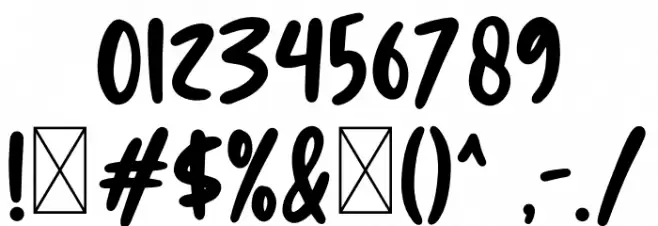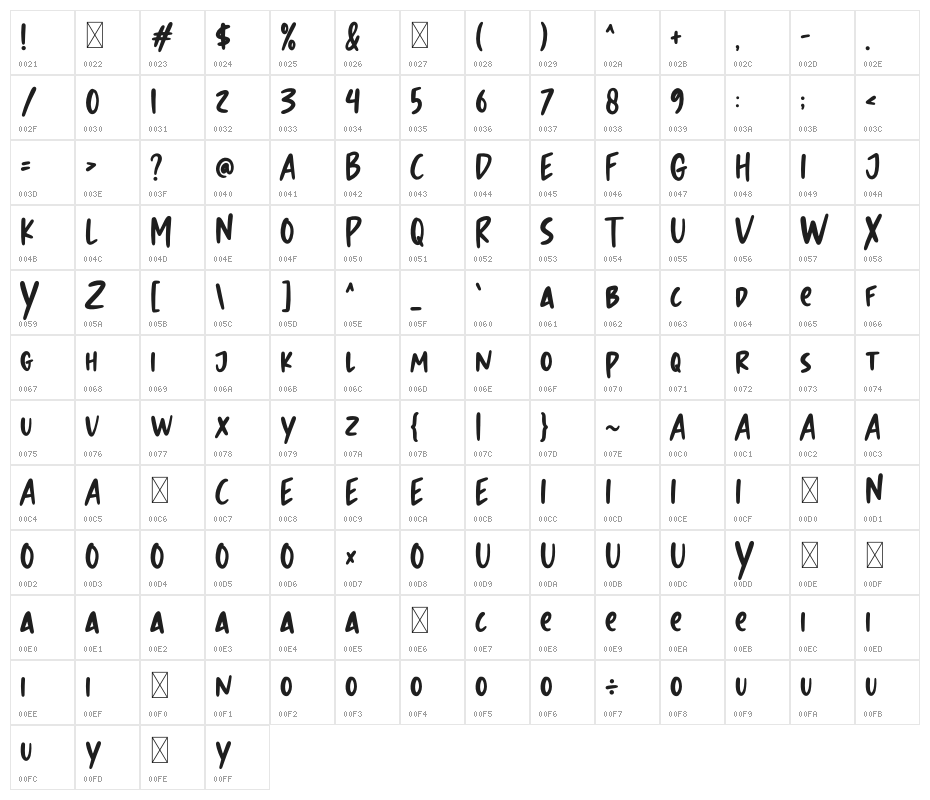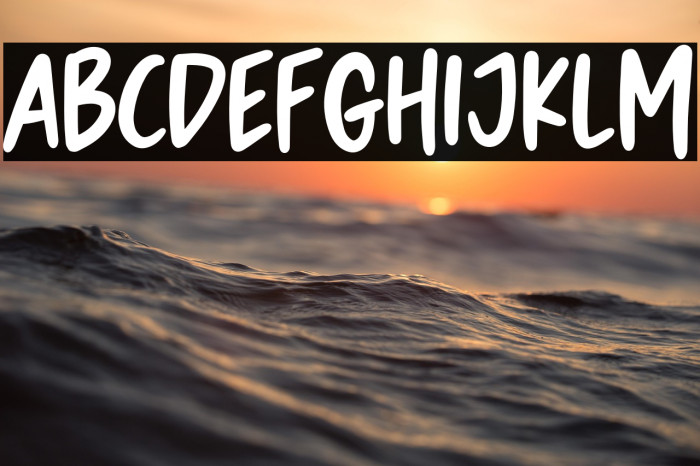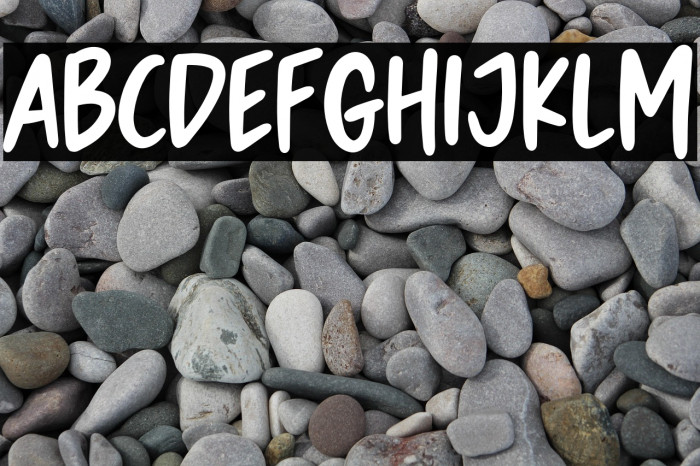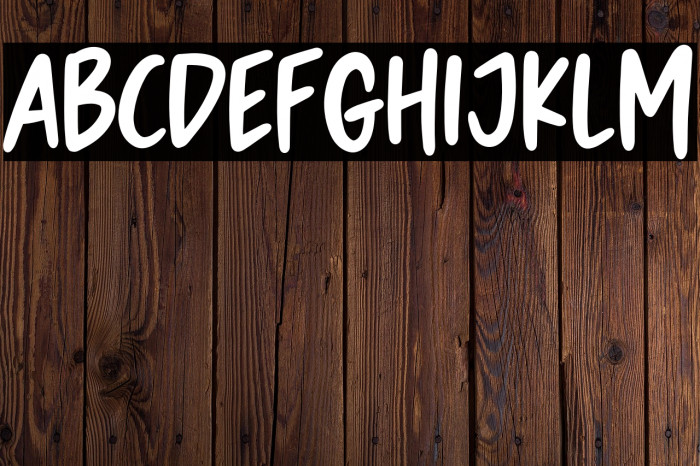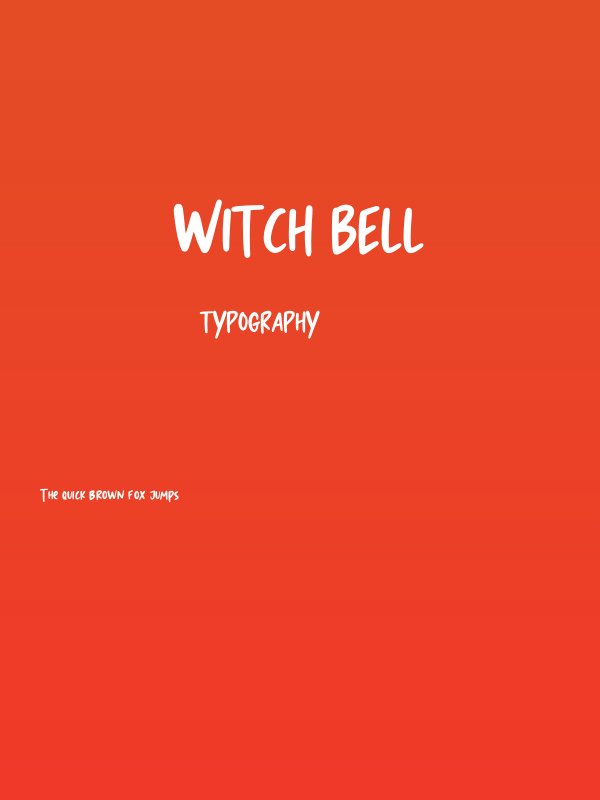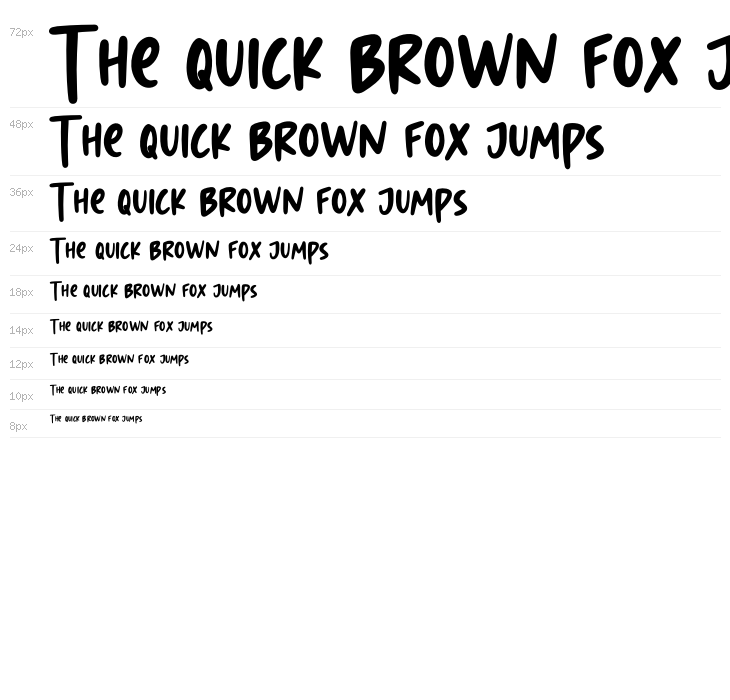
Witch Bell Font
Witch Bell Description
This font features a bold and playful handwritten style, characterized by its thick strokes and slightly irregular letterforms that give it a casual and friendly appearance. The uppercase and lowercase letters maintain a consistent flow, with rounded edges and a slight slant that adds to its informal charm. The numerals and special characters are designed to match the overall style, ensuring a cohesive look across all text. This font's energetic and approachable design makes it ideal for projects that require a personal touch or a sense of whimsy.